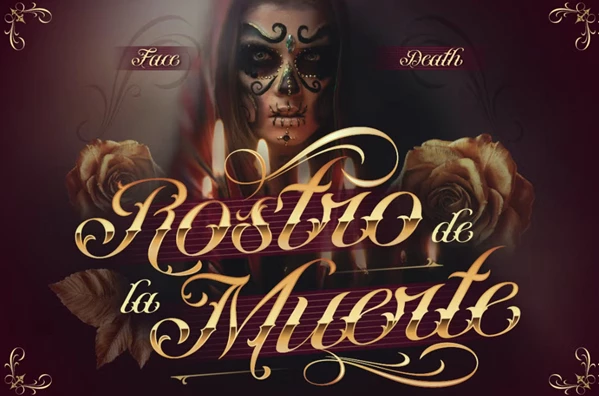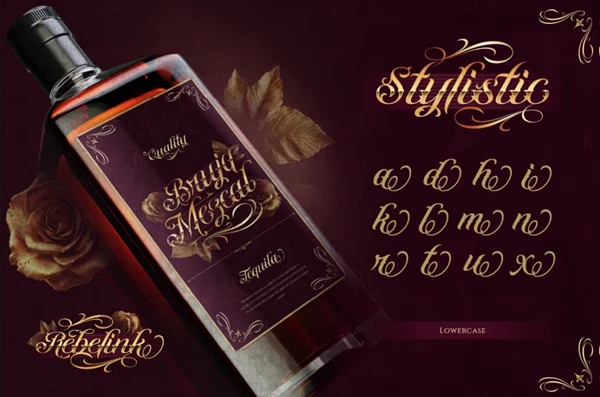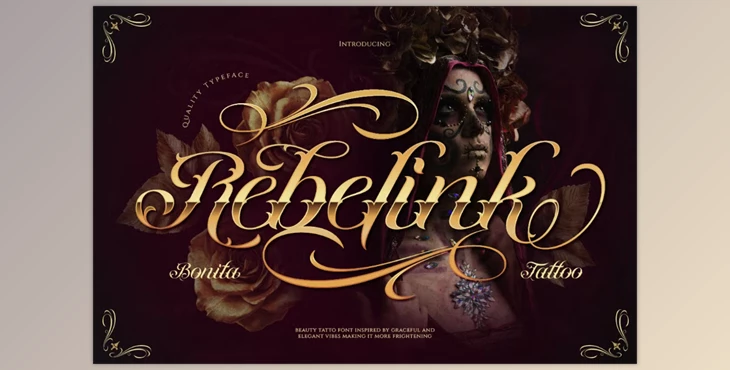
Rebelink Font:
This font is designed with a script style that incorporates elements of blackletter and baroque styles; it is named Rebelink. The design flows elegantly, and the letterforms are bold with contrast, looking both graceful and dramatic. Given the abundance of stylistic alternates available, custom modification can be done, making it easier to achieve your vision, which makes this font perfect for various projects. For tattoo studio logos, band or album covers, especially in metal or Latin rap genres, and gothic or Latin-inspired designs, Rebelink will meet your needs.
Some great features of Rebelink Font:
- Uppercase & Lowercase letters
- Numerals
- Punctuation marks Stylistic alternates
- Ligatures
- Multilingual support